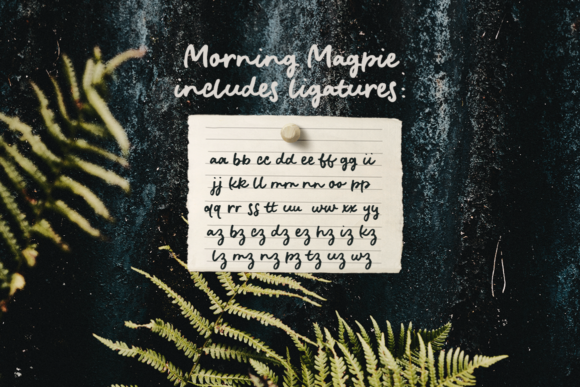
Morning Magpie is a sweet, delicate and costomizable handwritten font. It looks neat on invitations, thank you cards, quotes, greeting cards, logos, business cards and every other design which needs a handwritten touch.
Morning Magpie Font